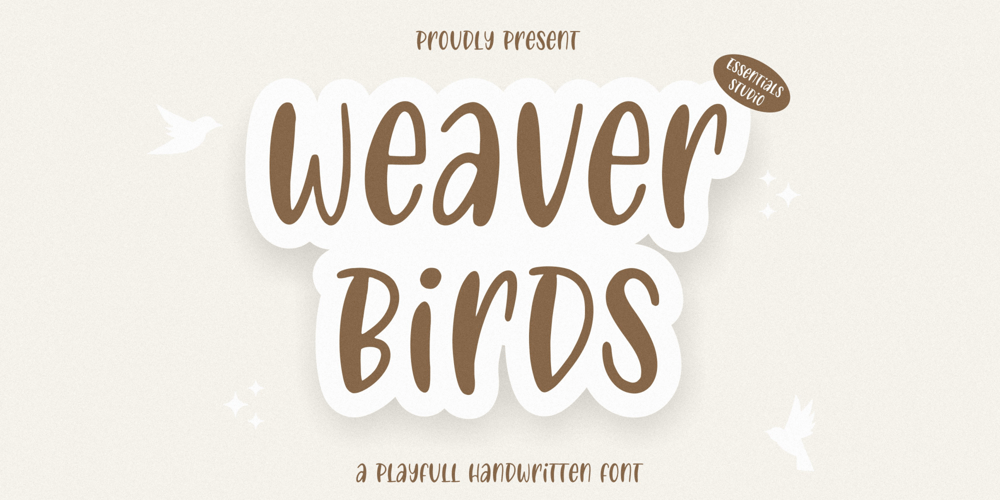
Weaver Birds Font Family was designed by Annas Rifky Anhar and published by Essentials Studio. Weaver Birds contains 1 styles and family package options. introducing by Essentials StudioWeaver Birds Is a A Playfull Handwriting FontWeaver Birds is perfect for product packaging, branding project, megazine, social media, wedding, or just used to express words above the background.